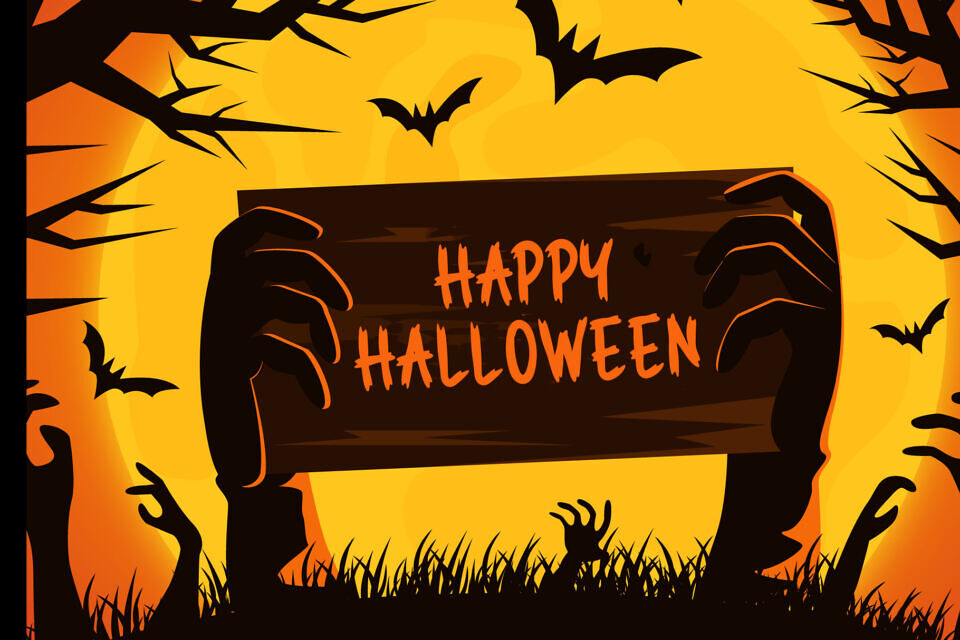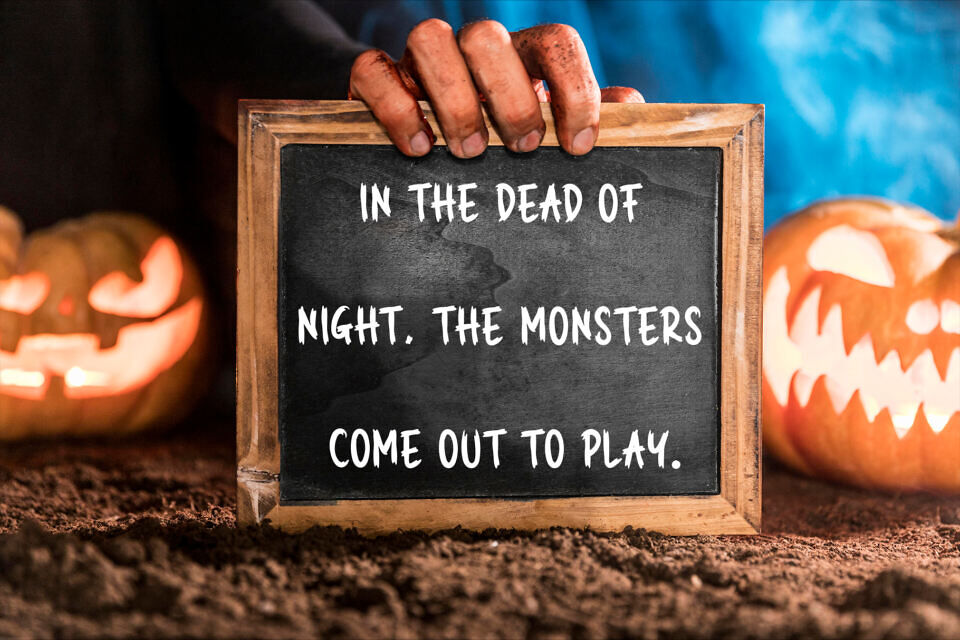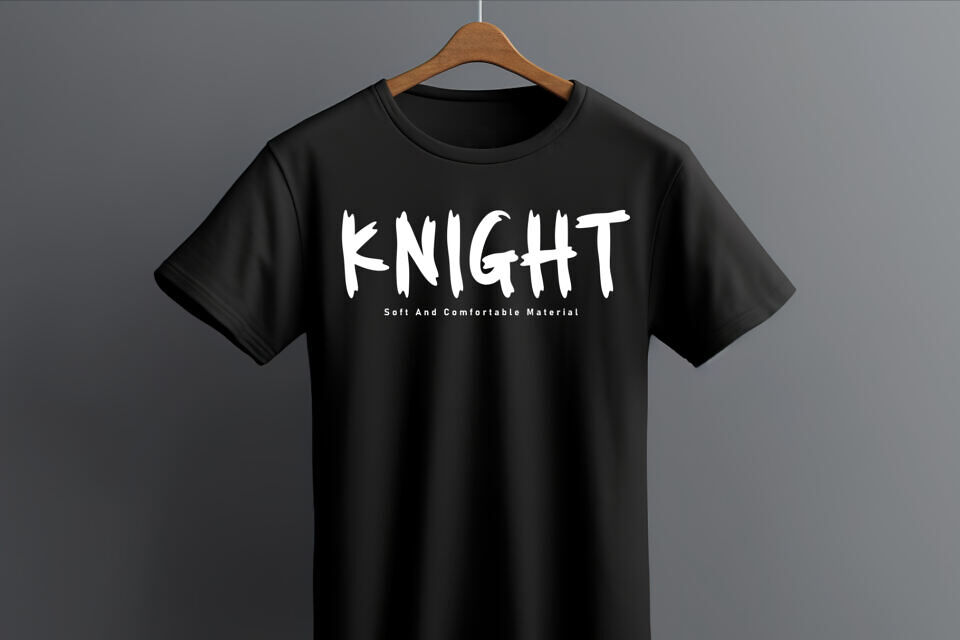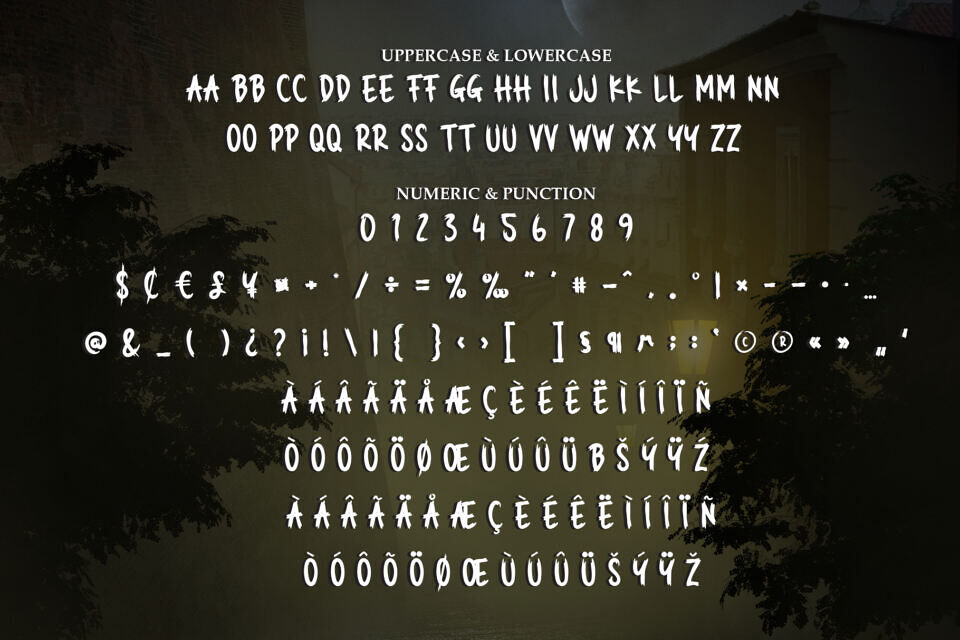
The Scary Stories Font is a chilling typeface designed to evoke the eerie atmosphere of Halloween and horror tales. Featuring bold uppercase and lowercase letters, numbers, and a variety of punctuation marks, this font includes unique accents and symbols for added spookiness.
With its jagged, hand-drawn style and ghostly shadows, it’s perfect for creating haunting posters, invitations, or storybook covers. The font’s versatile design captures the essence of rising hands from graves and dark, moonlit nights, making every word feel like a step into a terrifying tale.